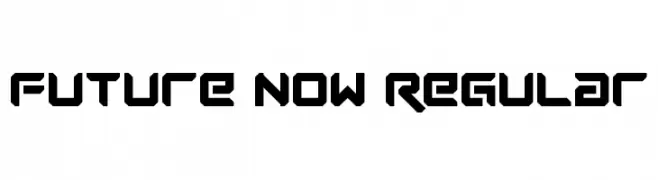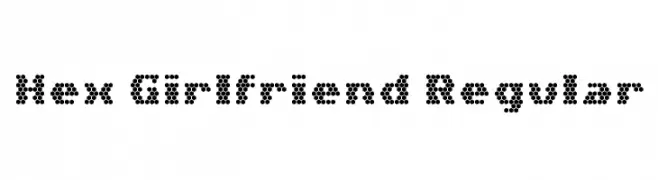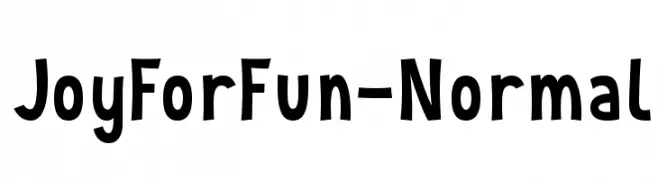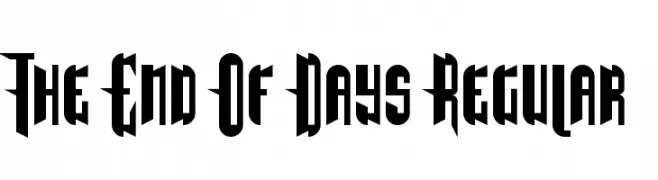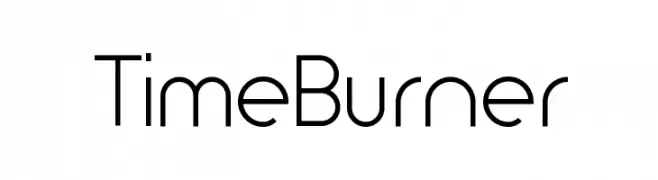
A bold, geometric font with sharp angles and a futuristic style.
A bold, angular font with a futuristic and dynamic design.
A playful, bold font with rounded characters and a hand-drawn feel.
A bold, gothic Blackletter font with intricate, angular designs.
A modern geometric sans-serif font with clean lines and balanced characters.